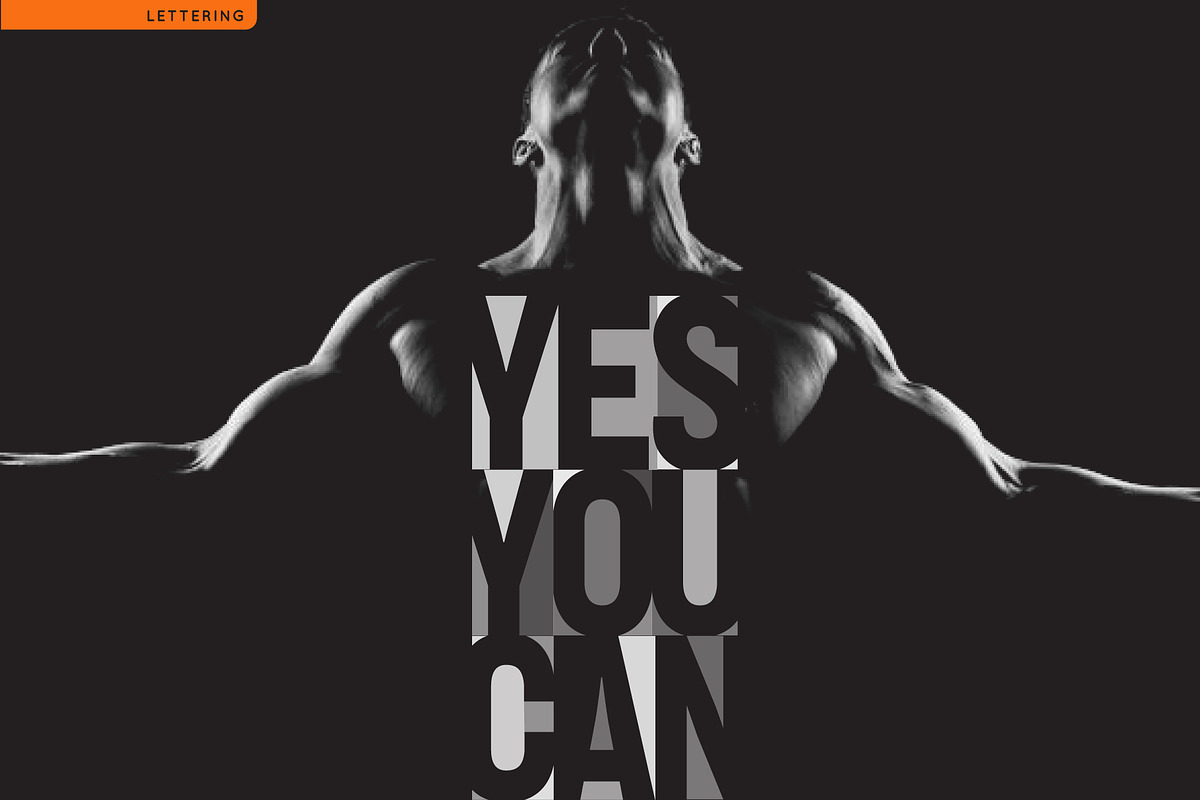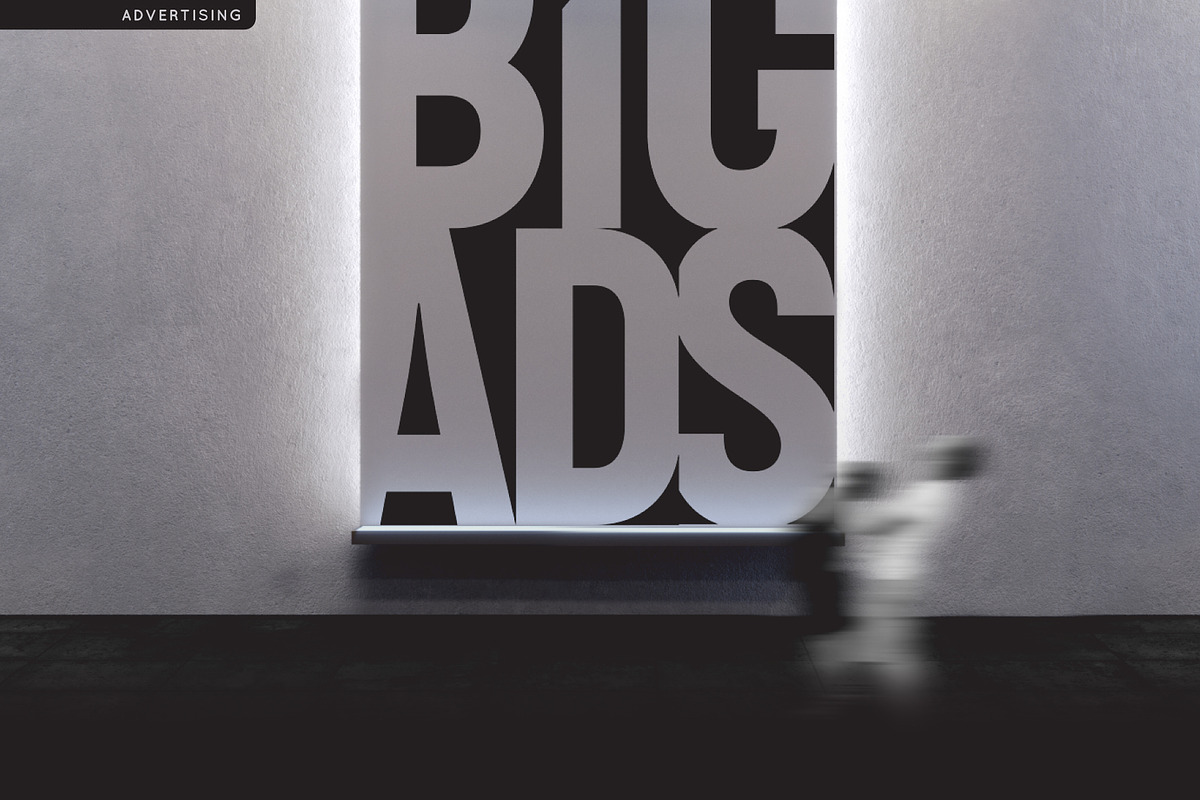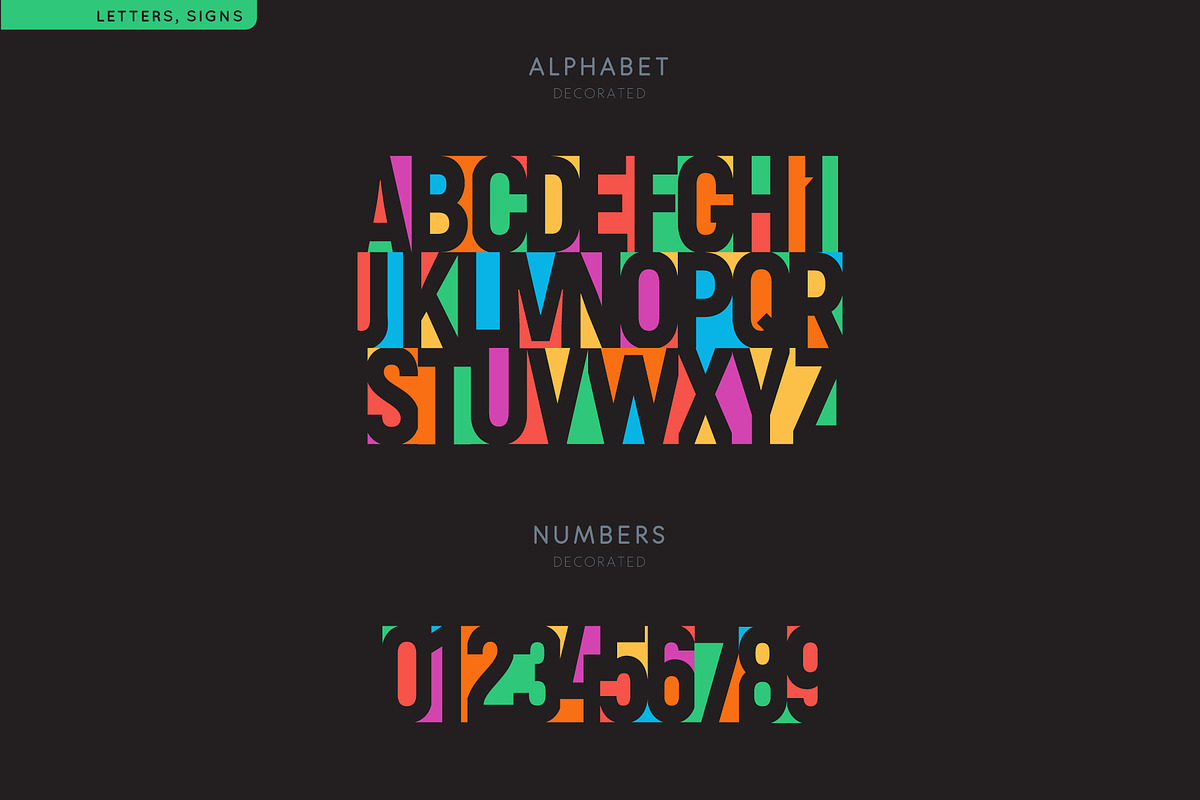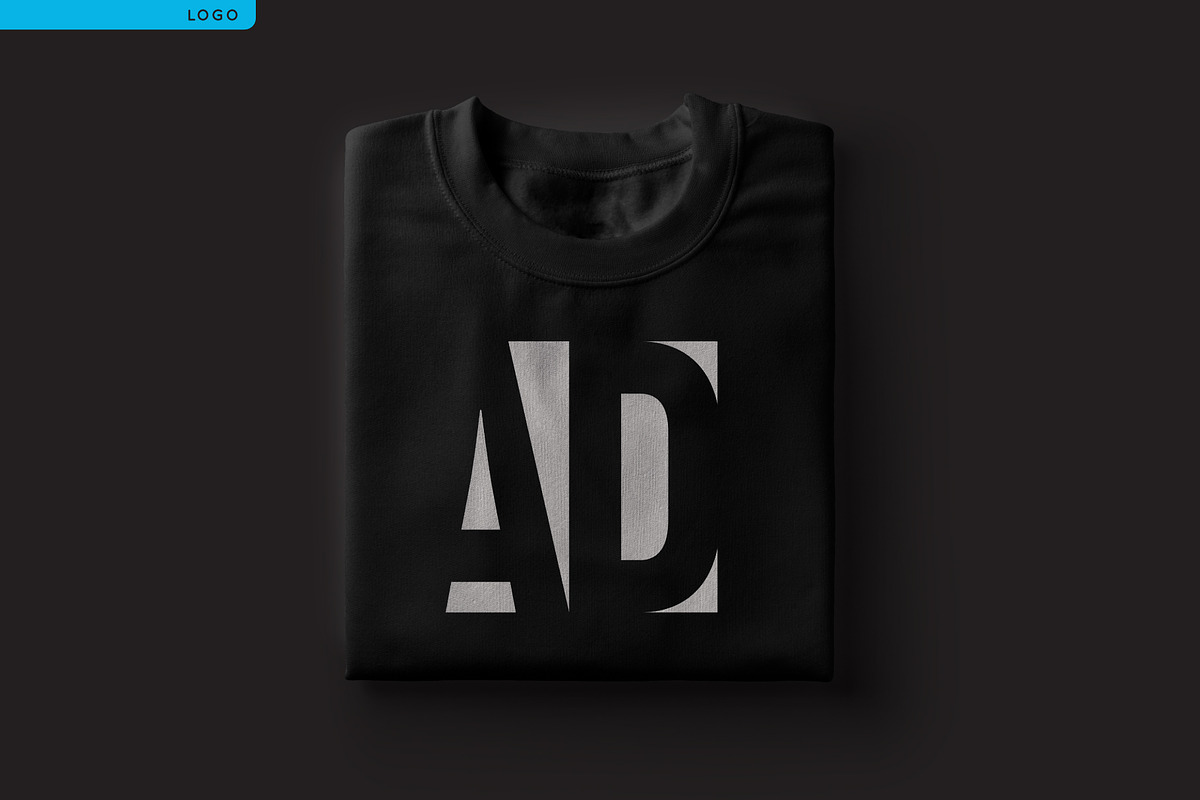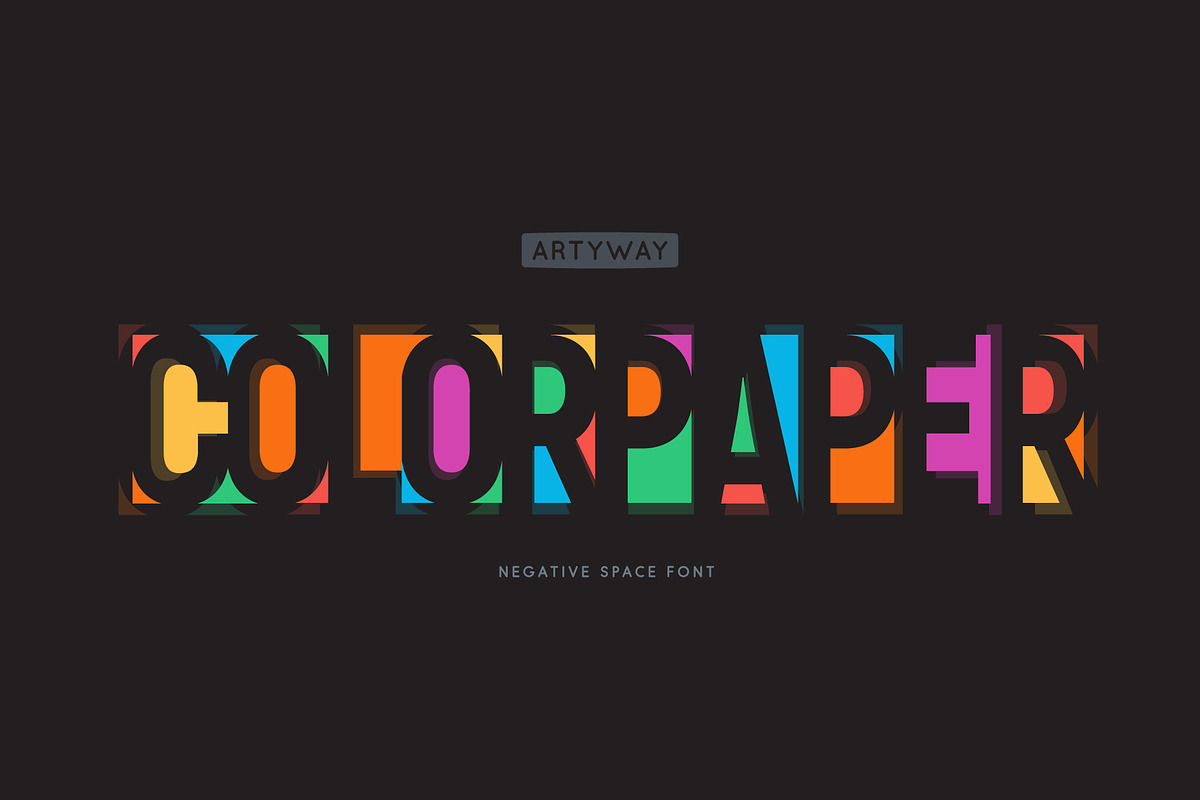
Negative Space Font
New expressive font "ColorPaper". It was made using the negative space of letters and it looks amazing! This design captures you with its originality and simplicity.
Thoroughly selected geometric shapes make a piece of art out of every symbol. Unfold the full potential of this font, experiment with the color and get pleasant impressions.
Production of an original and expressive design of a poster, title, logo, emblem using this font is very simple and fascinating.